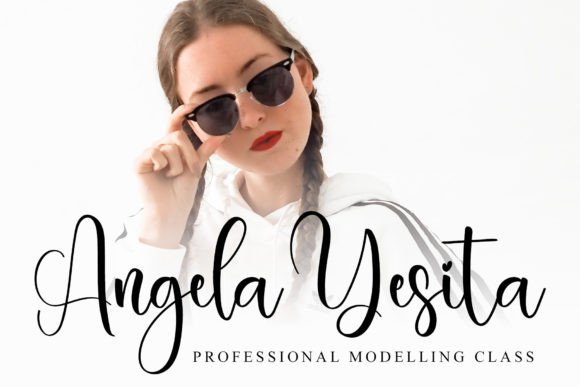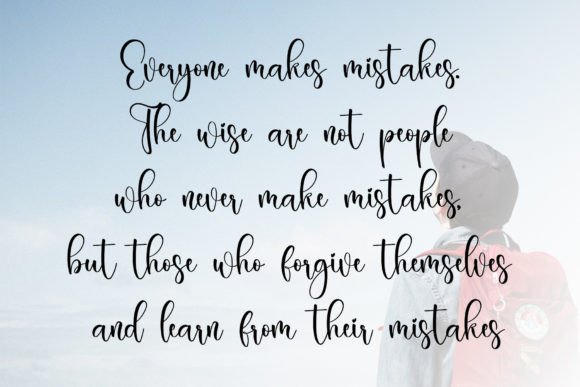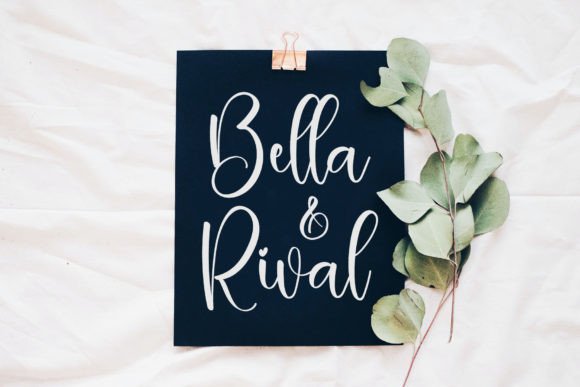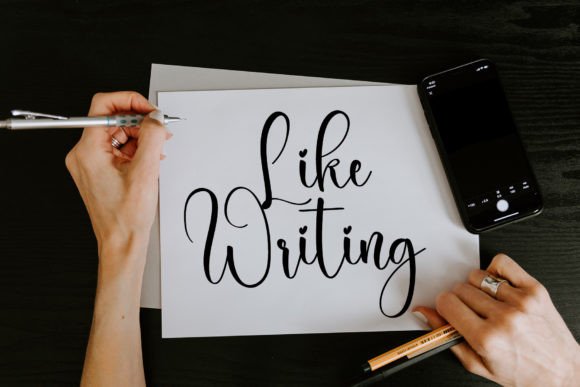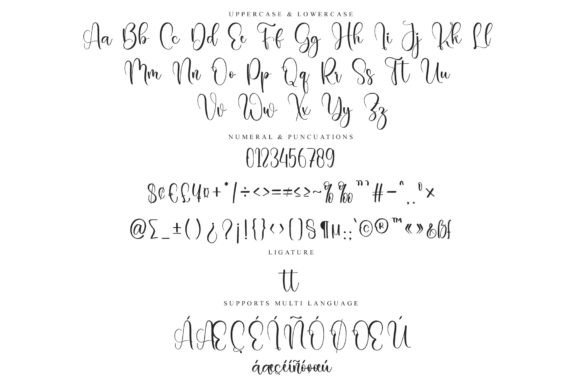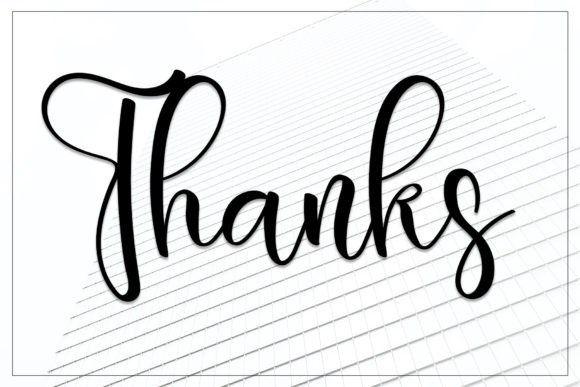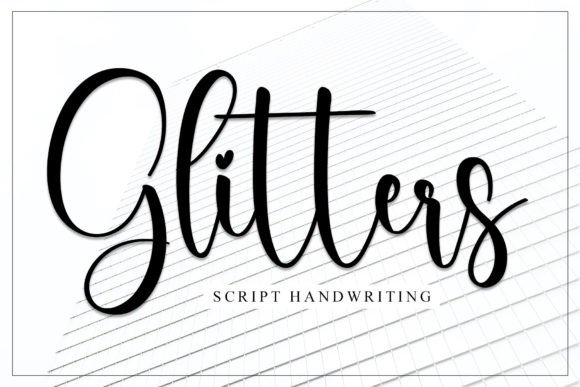
Introducing Glitters Font: Elevate Your Designs with Timeless Elegance
Are you on the hunt for a font that exudes sophistication, style, and a touch of classic charm? Look no further than Glitters Font, a stunning handwritten typeface that brings a contemporary atmosphere to your designs while paying homage to the beauty of traditional calligraphy.
The Inspiration Behind Glitters Font
Glitters Font is inspired by the timeless elegance of classic calligraphy, where every letter and stroke is a masterclass in precision and beauty. The creators of Glitters have meticulously crafted this font to capture the essence of traditional calligraphy, while infusing it with a modern twist that makes it perfect for a wide range of design applications.
Key Features of Glitters Font
- Stylish Handwritten Design: Glitters Font boasts a stylish, handwritten design that adds a personal touch to any project. Its elegant strokes and carefully crafted letters make it perfect for designs that require a touch of sophistication.
- Contemporary Atmosphere: Despite its classic inspiration, Glitters Font has a distinctly contemporary feel that makes it suitable for modern designs. Its balanced and varied letterforms ensure that your text is always legible and visually appealing.
- Impeccable Form: The creators of Glitters Font have paid close attention to detail, ensuring that every letter and stroke is meticulously crafted to perfection. The result is a font that is both beautiful and functional.
- Balanced and Varied: Glitters Font features a range of letterforms and swashes that add variety and interest to your designs. Its balanced design ensures that your text is always easy to read, making it perfect for body text, headings, and more.
Glitters Font is a versatile typeface that is perfect for designers and crafters who want to add a touch of elegance to their projects. Whether you’re working on a logo, branding materials, packaging, or digital designs, Glitters Font is the perfect choice. Its wide range of applications includes:
- Logos and Branding: Create a lasting impression with Glitters Font’s elegant and sophisticated design.
- Packaging and Product Design: Add a touch of luxury to your packaging and product designs with Glitters Font’s beautiful letterforms.
- Digital Designs: Use Glitters Font to create stunning digital designs, including social media graphics, blog posts, and more.
- Crafting and Scrapbooking: Add a personal touch to your crafting and scrapbooking projects with Glitters Font’s beautiful handwritten design.
Why Choose Glitters Font?
With so many fonts available, why choose Glitters Font? Here are just a few reasons why Glitters Font stands out from the crowd:
- Unique and Elegant Design: Glitters Font’s unique and elegant design sets it apart from other fonts on the market.
- High-Quality and Versatile: Glitters Font is a high-quality font that is versatile and easy to use, making it perfect for a wide range of design applications.
In conclusion, Glitters Font is a stunning handwritten typeface that brings a touch of timeless elegance to your designs. Its stylish design, contemporary atmosphere, and impeccable form make it perfect for designers and crafters who want to add a touch of sophistication to their projects. With its wide range of applications and excellent customer support, Glitters Font is the perfect choice for anyone looking to elevate their designs.